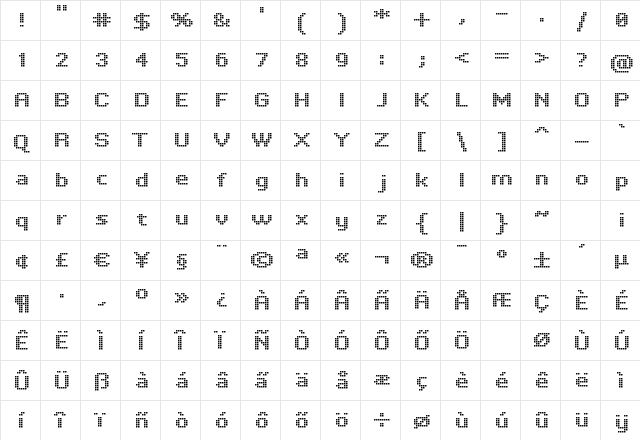
Tenacity HR48 Bold
Design Context for Tenacity HR48 Typeface
Tenacity HR48 is a composed and adaptable typeface that performs quietly and consistently across a wide range of design contexts. Its bold stroke weight gives it real presence on the page.